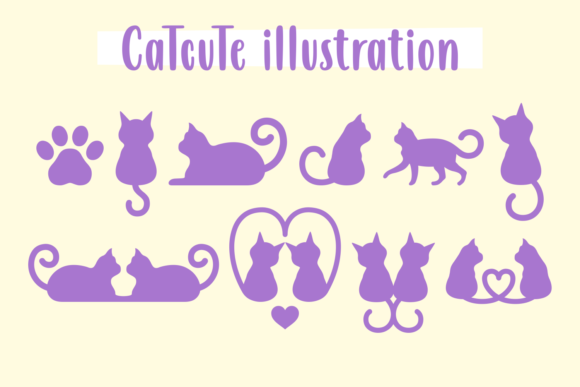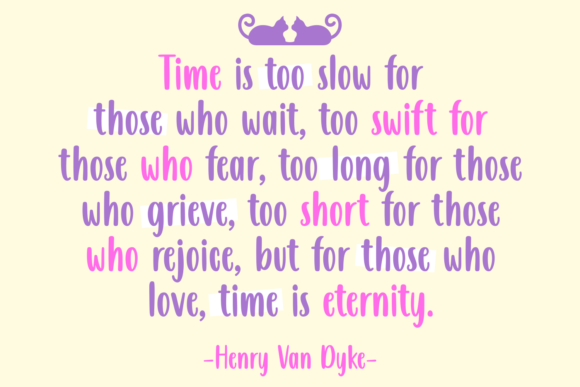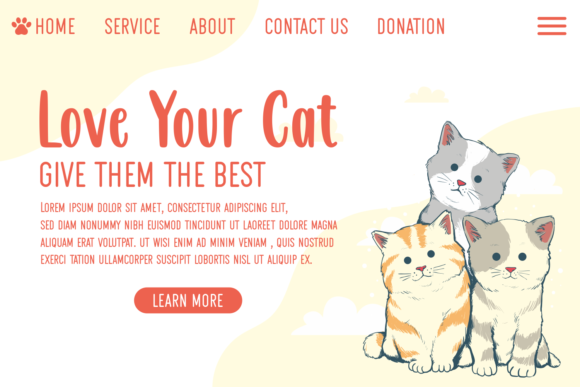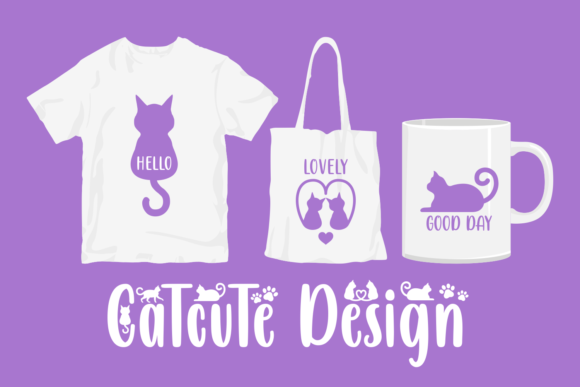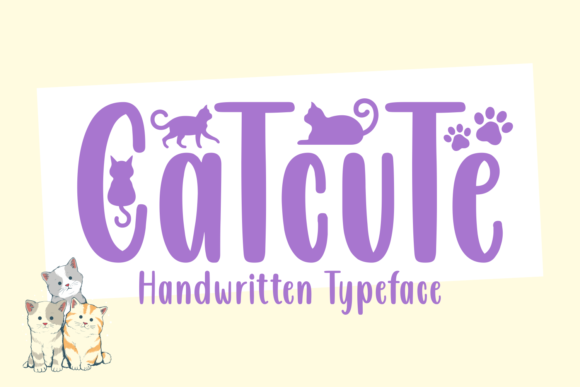
Introducing Catcute Font: The Purrfect Addition to Your Design Arsenal
Are you tired of using the same old fonts in your designs? Look no further! Catcute Font is here to add a touch of whimsy and playfulness to your creative projects. This adorable duo font, consisting of a handwritten font and dingbats, is sure to make your designs stand out from the crowd.
What Makes Catcute Font So Special?
Catcute Font is a unique and charming font that features cute cat accents and lovely typography. The handwritten font is perfect for adding a personal touch to your designs, while the dingbats provide a fun and playful way to add visual interest. Whether you’re working on a branding project, creating invitations, or designing social media graphics, Catcute Font is the perfect choice.
The Perfect Combination: Handwritten and Dingbats
One of the standout features of Catcute Font is its duo font design. The handwritten font is elegant and sophisticated, while the dingbats add a playful and whimsical touch. This combination allows you to create visually appealing designs that are both inviting and irresistible. Use the handwritten font for body text or headings, and add the dingbats as accents or graphics to give your designs a pop of personality.
Key Features of Catcute Font
- Cute Cat Accents: Add a touch of feline fun to your designs with adorable cat accents.
- Lovely Typography: The handwritten font features beautiful, flowing script that is easy to read and visually appealing.
- Dingbats: Use the dingbats to add visual interest and personality to your designs.
- Versatile: Catcute Font is perfect for a wide range of design projects, from branding and invitations to social media graphics and more.
Why Designers and Crafters Love Catcute Font
Catcute Font is a must-have for designers and crafters who want to add a touch of whimsy and personality to their designs. The font is perfect for:
- Branding: Create a unique and memorable brand identity with Catcute Font.
- Invitations: Design beautiful and eye-catching invitations for special occasions.
- Social Media Graphics: Add a touch of personality to your social media graphics and make them stand out.
- Crafting: Use Catcute Font to create adorable and charming craft projects, such as signs, banners, and more.
How to Use Catcute Font in Your Designs
Using Catcute Font in your designs is easy! Here are a few tips to get you started:
- Pair with Other Fonts: Pair Catcute Font with other fonts to create a unique and visually appealing design.
- Use as a Headline Font: Use the handwritten font as a headline font to add a touch of elegance and sophistication.
- Add Dingbats: Add the dingbats as accents or graphics to give your designs a pop of personality.
| Author | Kelik – 7NTypes |
Catcute Font is a unique and charming font that is sure to add a touch of whimsy and playfulness to your designs. With its cute cat accents, lovely typography, and versatile design, it’s the perfect choice for designers and crafters who want to create visually appealing and inviting designs. So why wait? Get your paws on Catcute Font today and start creating adorable and charming designs that will make your audience smile!